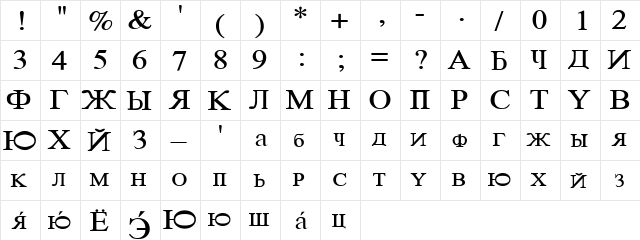
Novgorod Regular
Design Context for Novgorod Typeface
Novgorod takes a measured approach to typography — its balanced proportions and neutral character make it a reliable workhorse for both digital and print work.